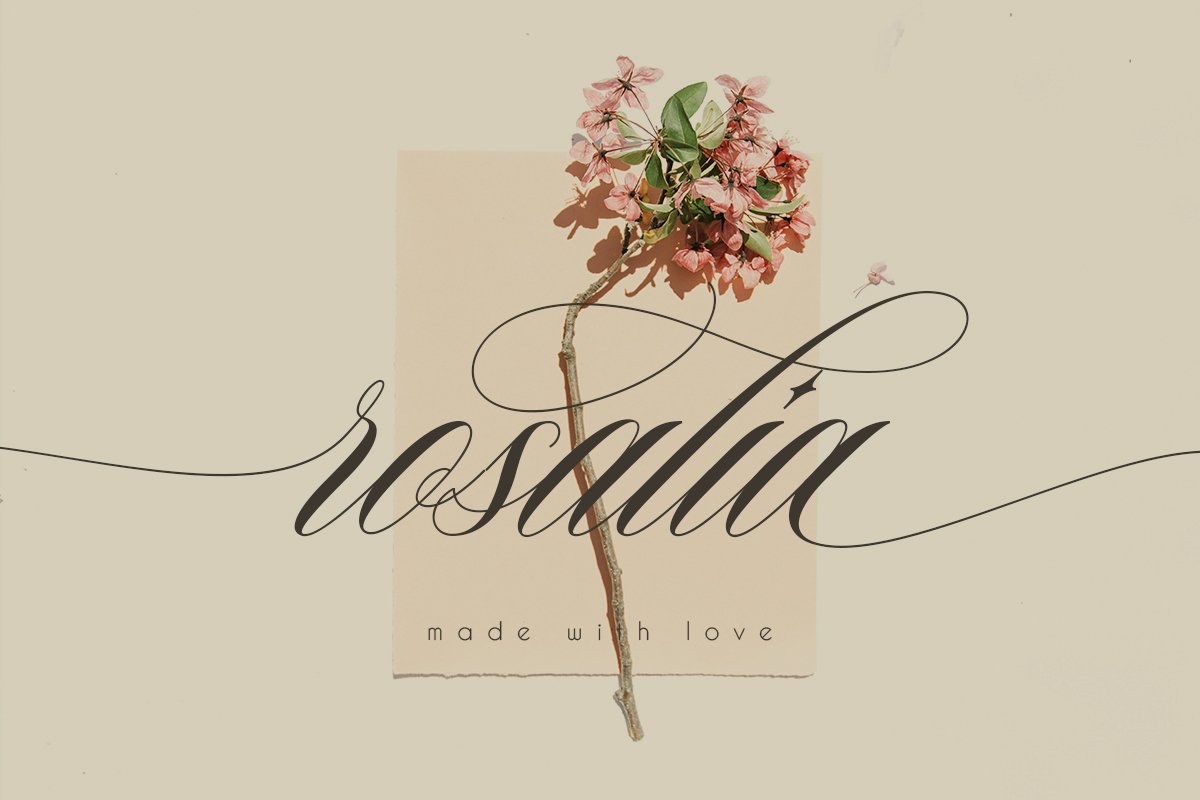
About the Angeline | Modern Calligraphy
Introducing our new product the name Angeline | Modern Calligraphy, Angeline Fonts includes uppercase and lowercase letters, numerals, a large range of punctuation, and ligatures, Uppercase and Lowercase letters include over 10 ending swashes and alternative fontFEATURES :Uppercase Lowercase Number Punctuation Multilingual Swash OpentypeFILES INCLUDED :Angeline OtfAngeline TtfPlease contact us if you have any questions, we are happy to help you!Thank you!